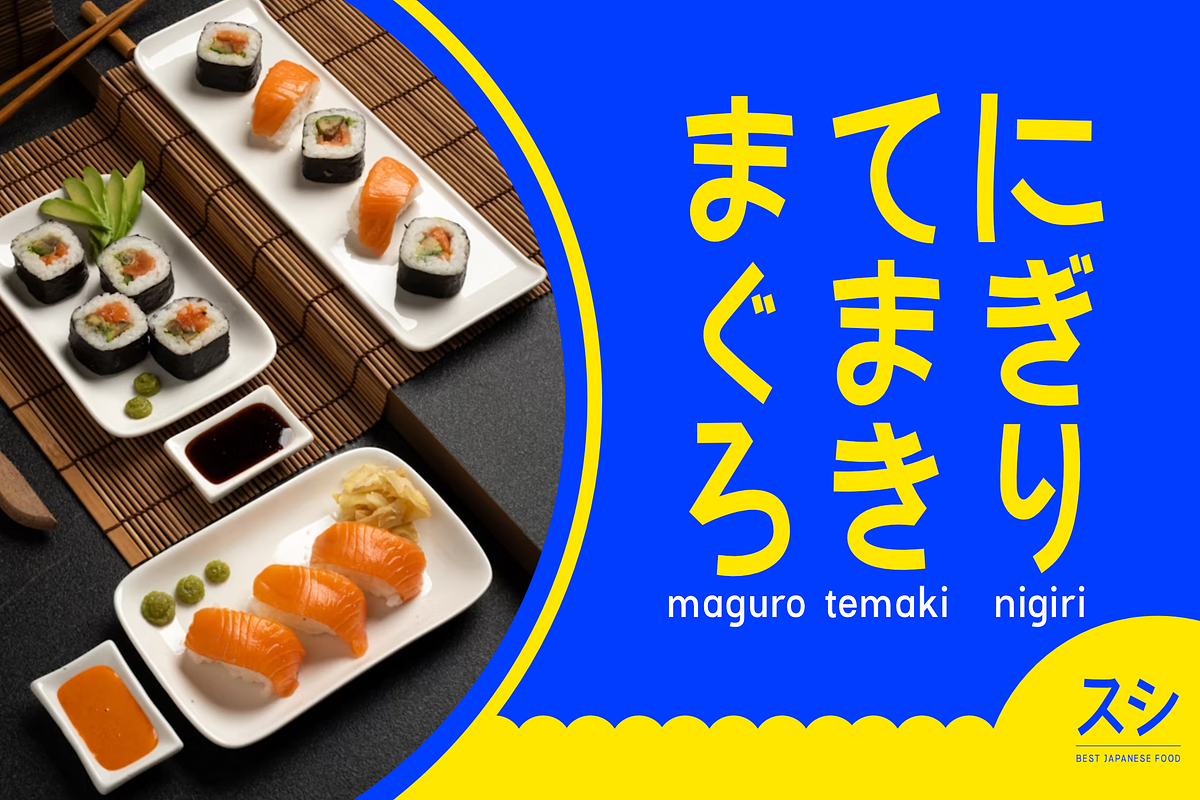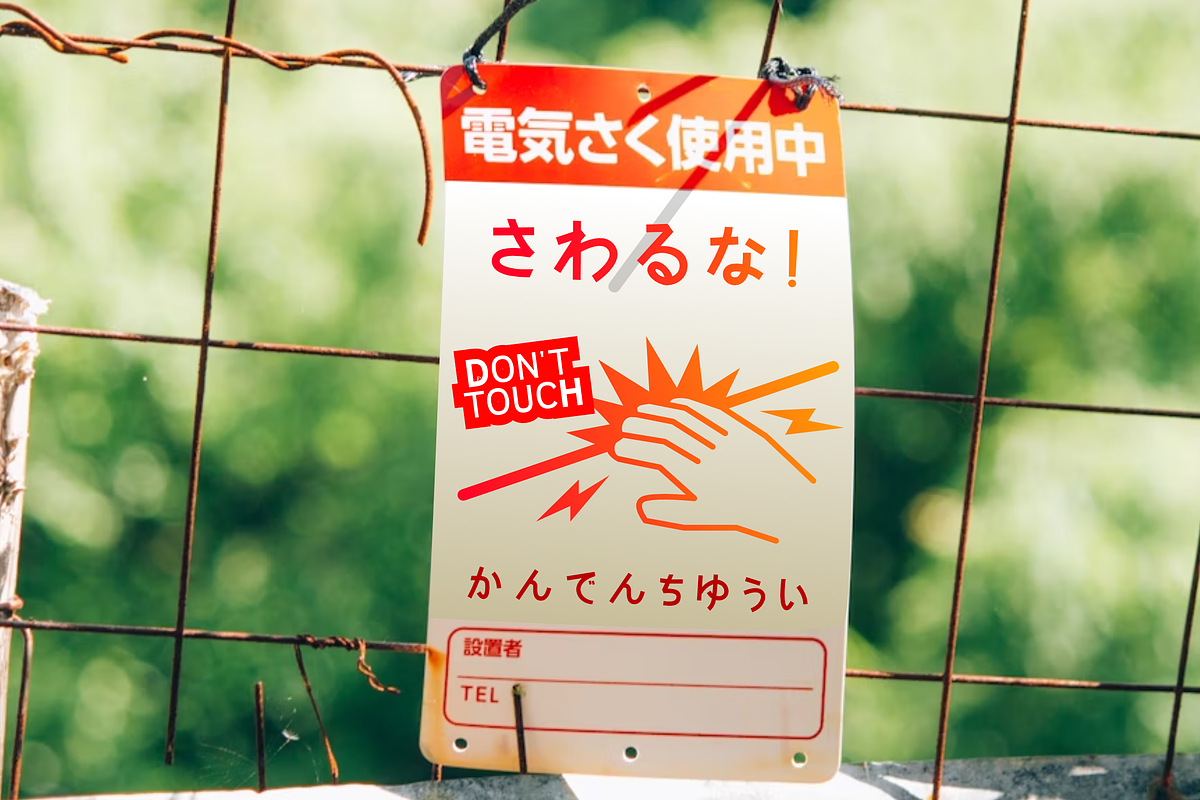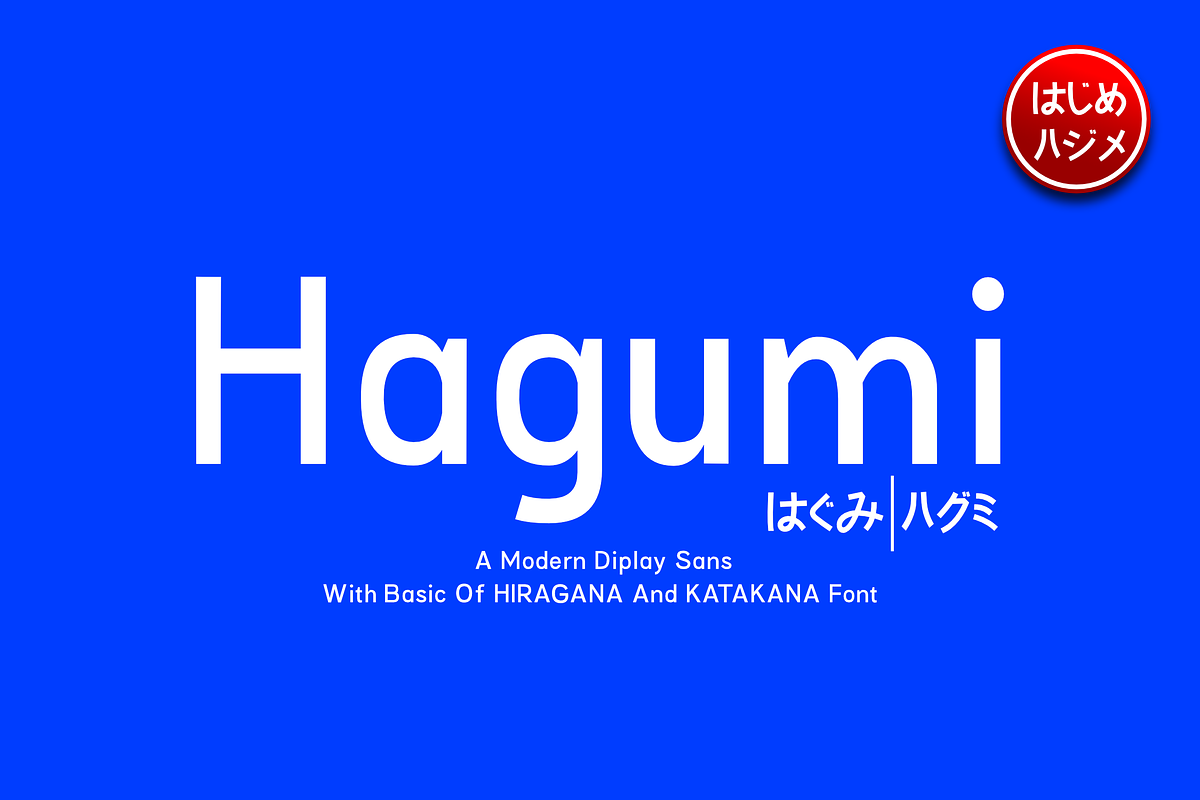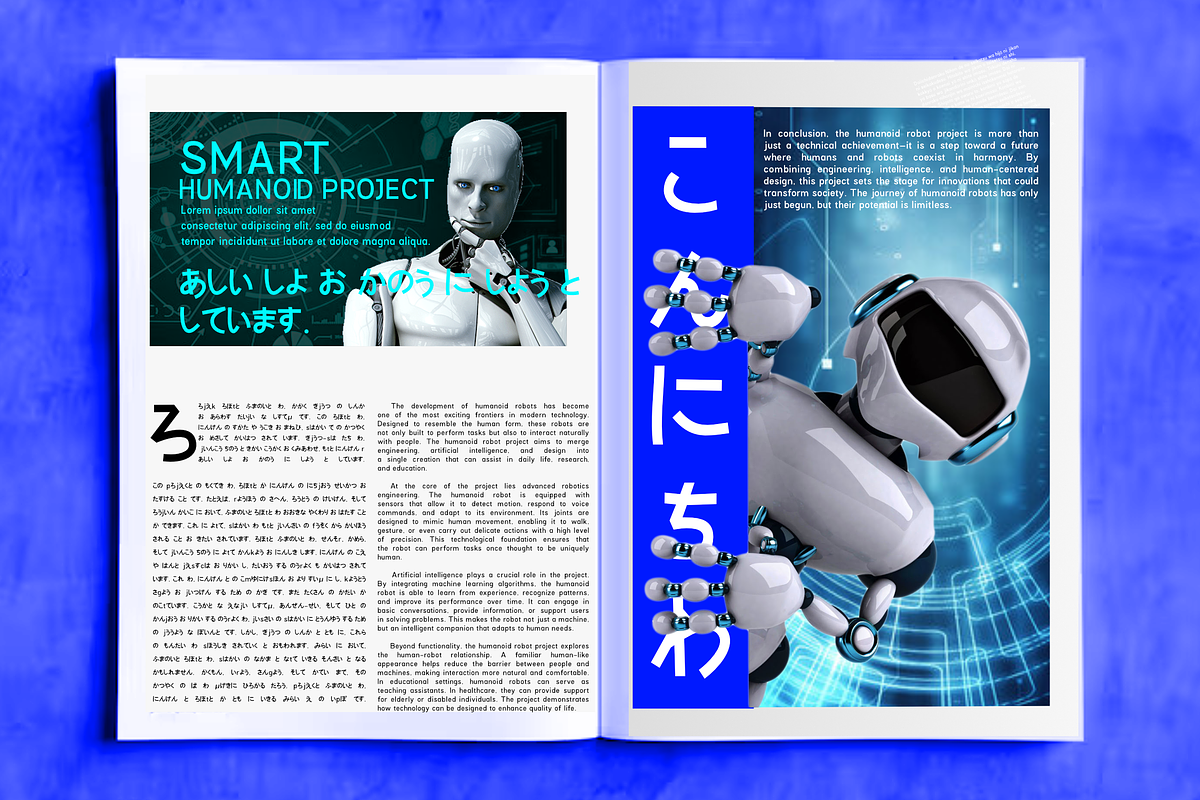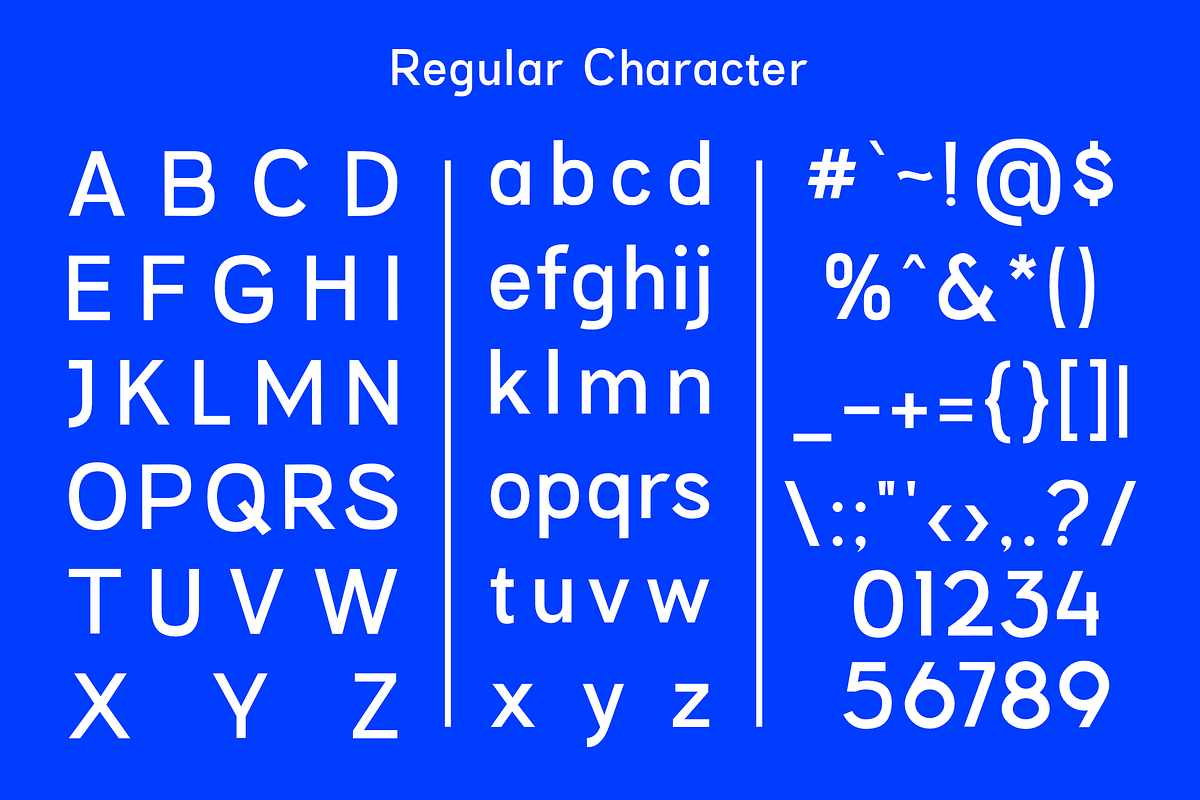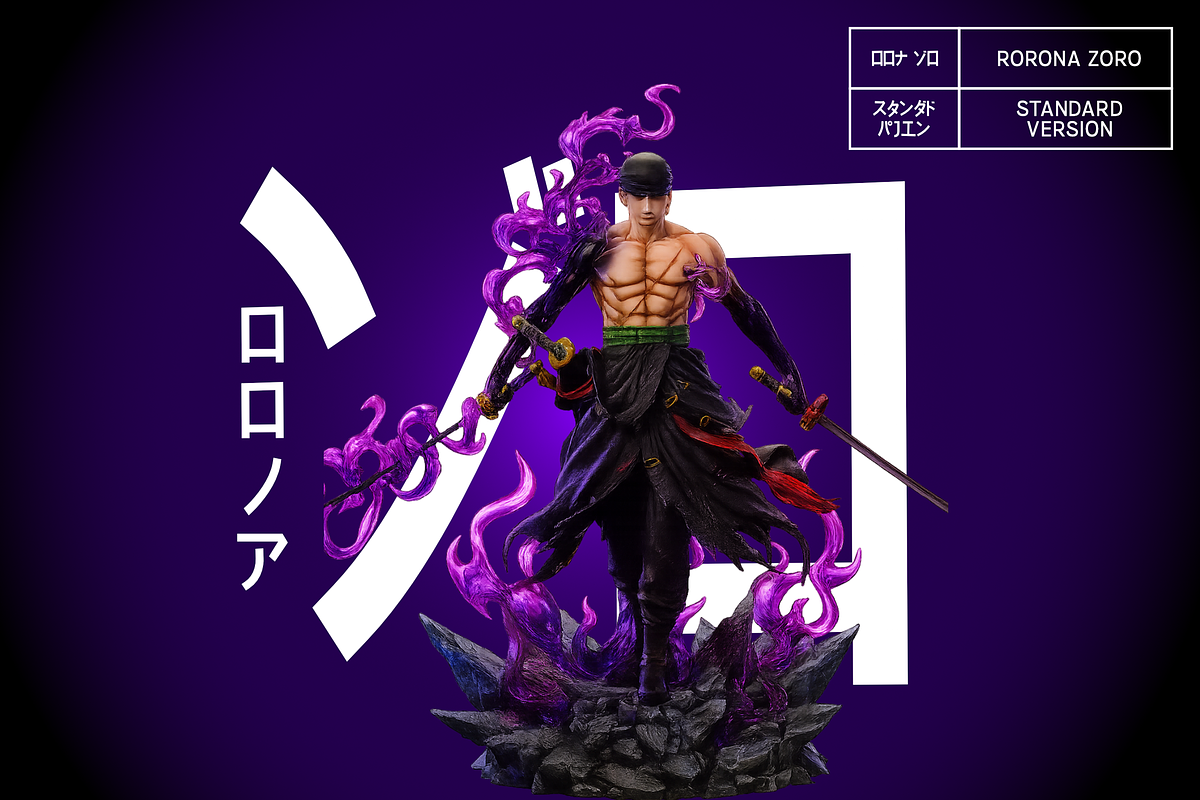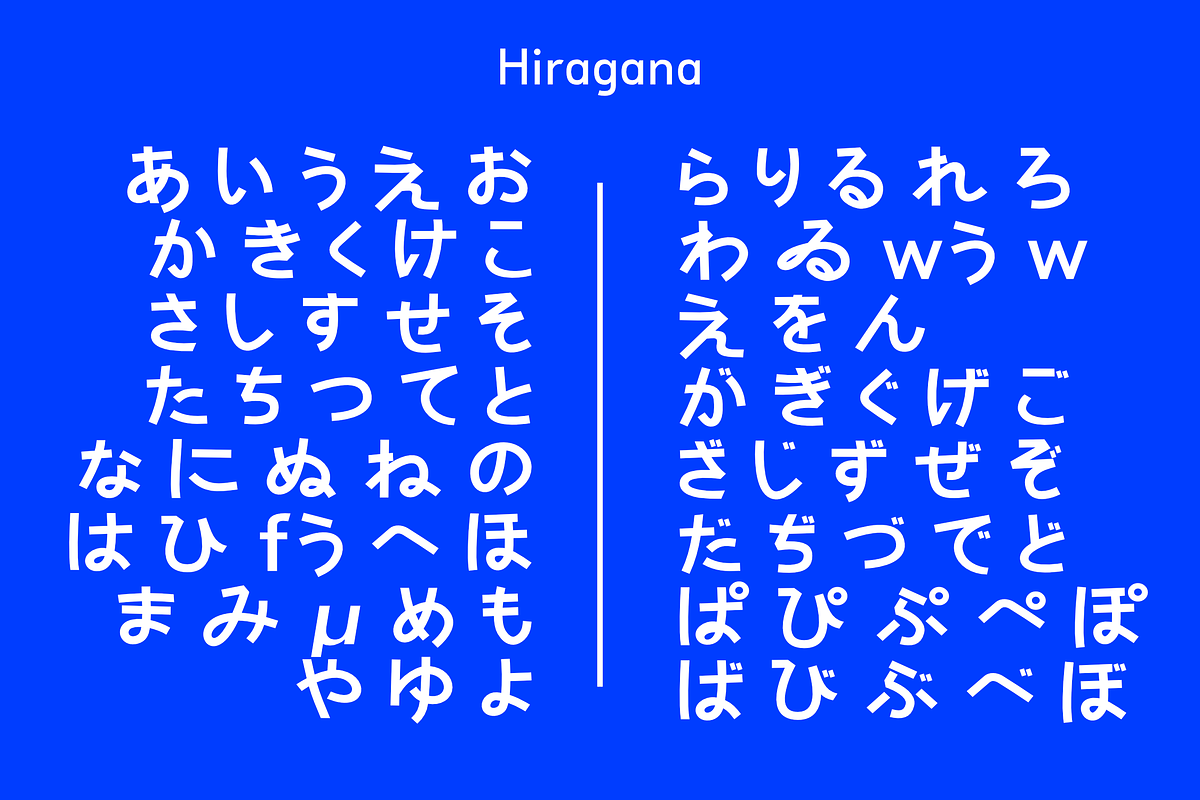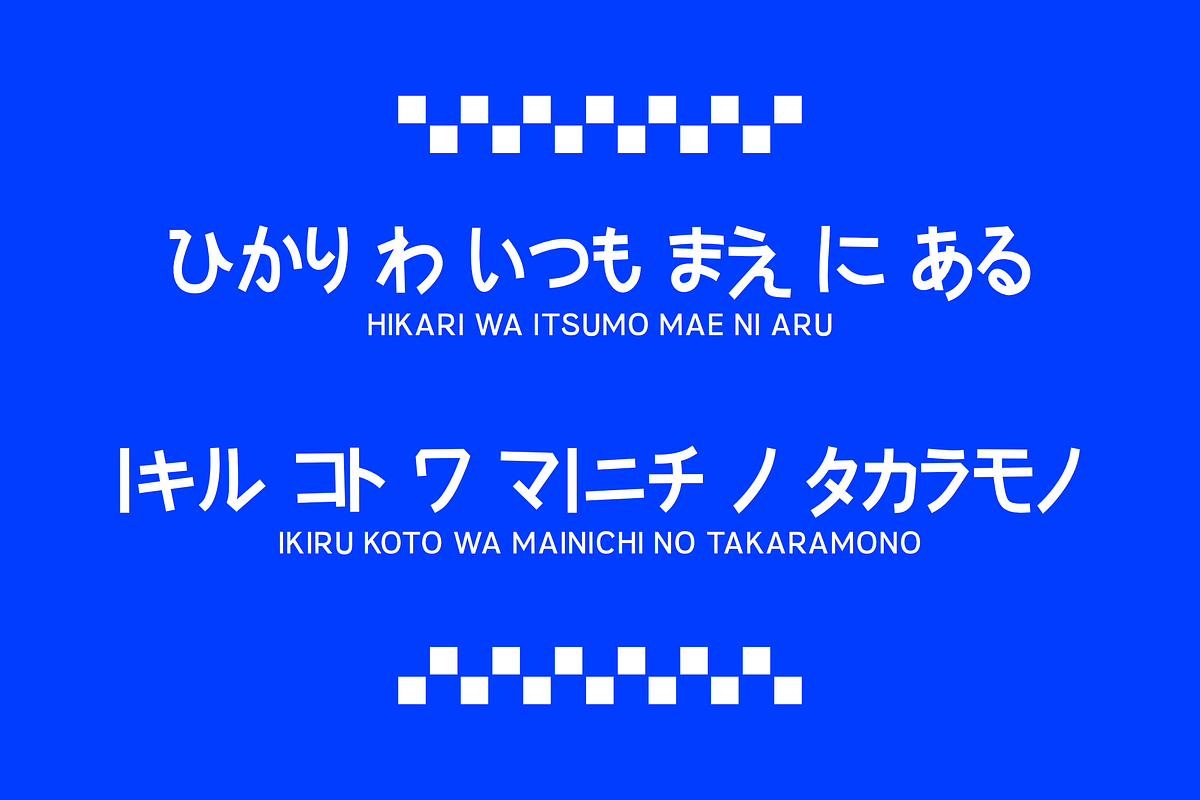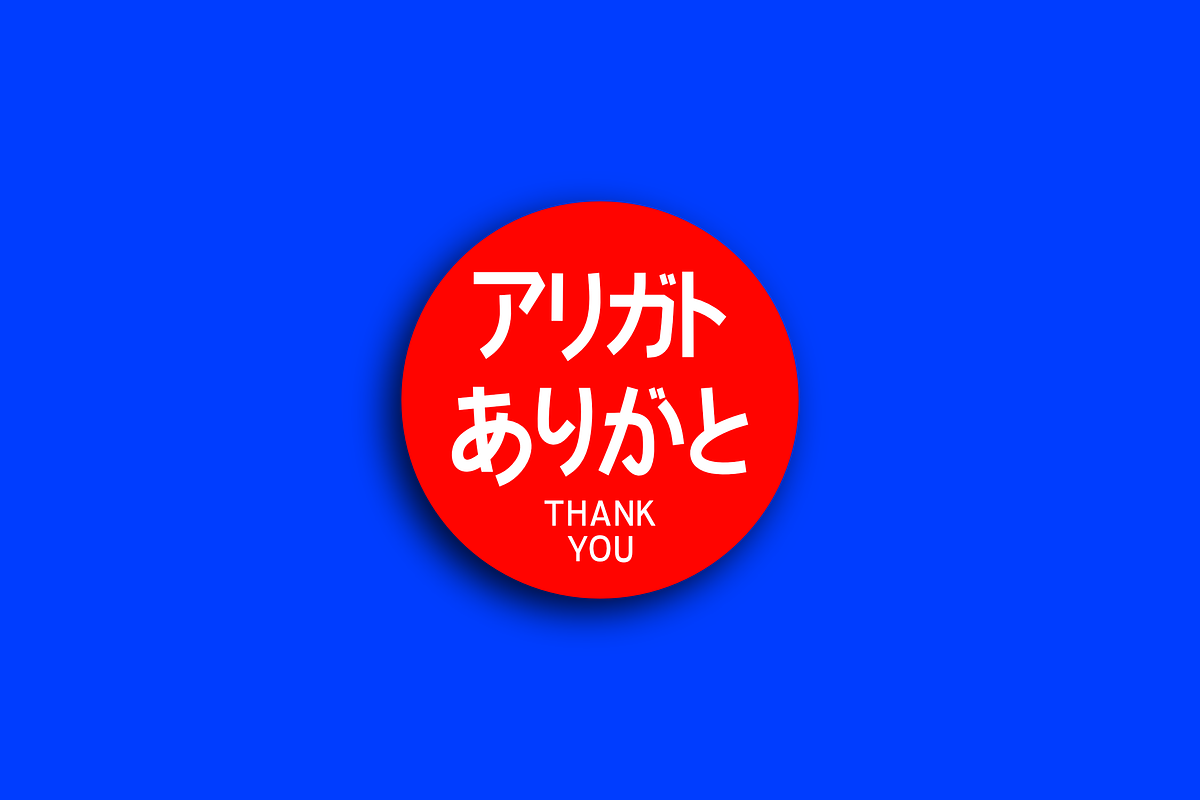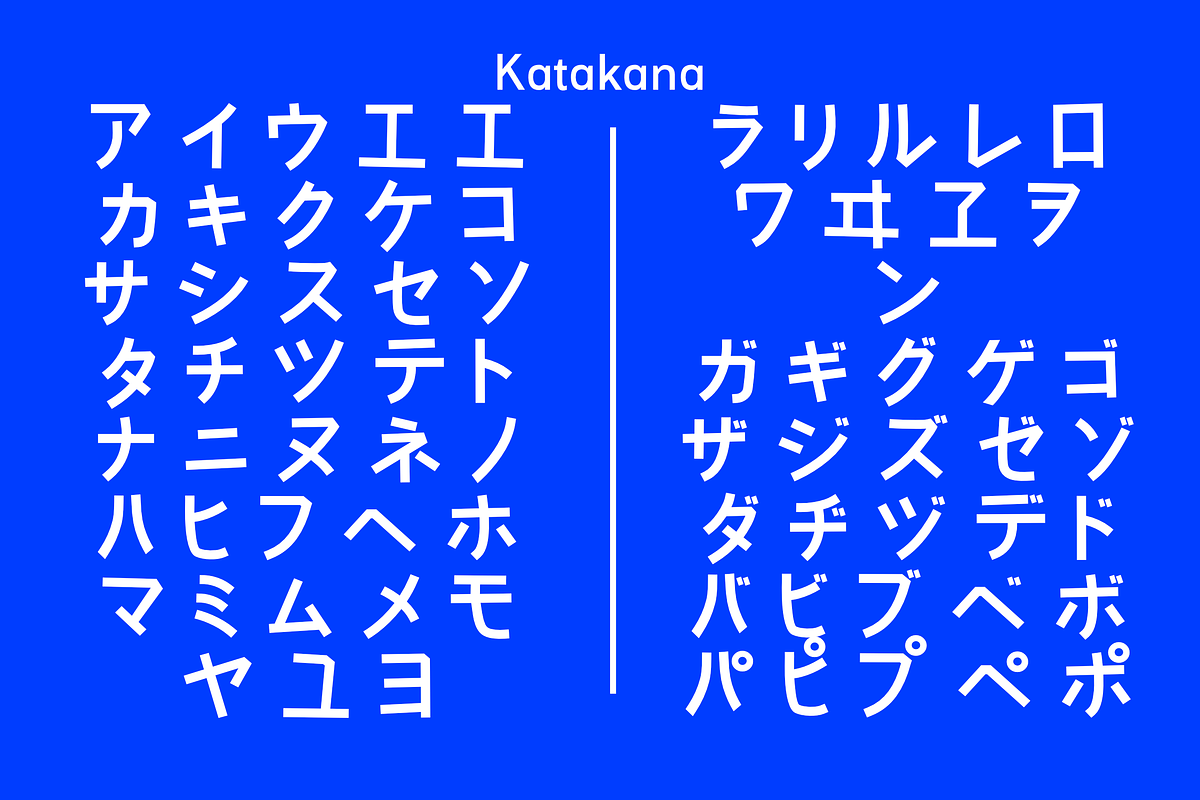
Hagumi - with Katakana and Hiragana
Hagumi is a modern sans-serif display font that blends simplicity with Japanese character support. Featuring clean, minimalistic letterforms and full Hiragana and Katakana coverage in all caps, Hagumi is designed to offer clarity, balance, and versatility for both print and digital design. Whether you're working on branding, posters, packaging, UI/UX, or editorial layouts, Hagumi provides a clean aesthetic that fits seamlessly into modern creative workflows. Its simplicity is intentional — to let your message shine while still adding a subtle touch of Japanese visual culture. Use Hagumi as a reliable design companion that helps bring global and bilingual concepts to life with ease. Perfect for: • Branding • Editorial Design • Japanese-inspired Projects • UI/UX Interfaces • Logo Design • Print & Packaging Includes: • Uppercase Latin Alphabet (A–Z) • Numbers & Basic Punctuation • Standard Ligature • Full Hiragana Set (All Caps Style) • Full Katakana Set (All Caps Style) • OTF / TTF / WOFF formats